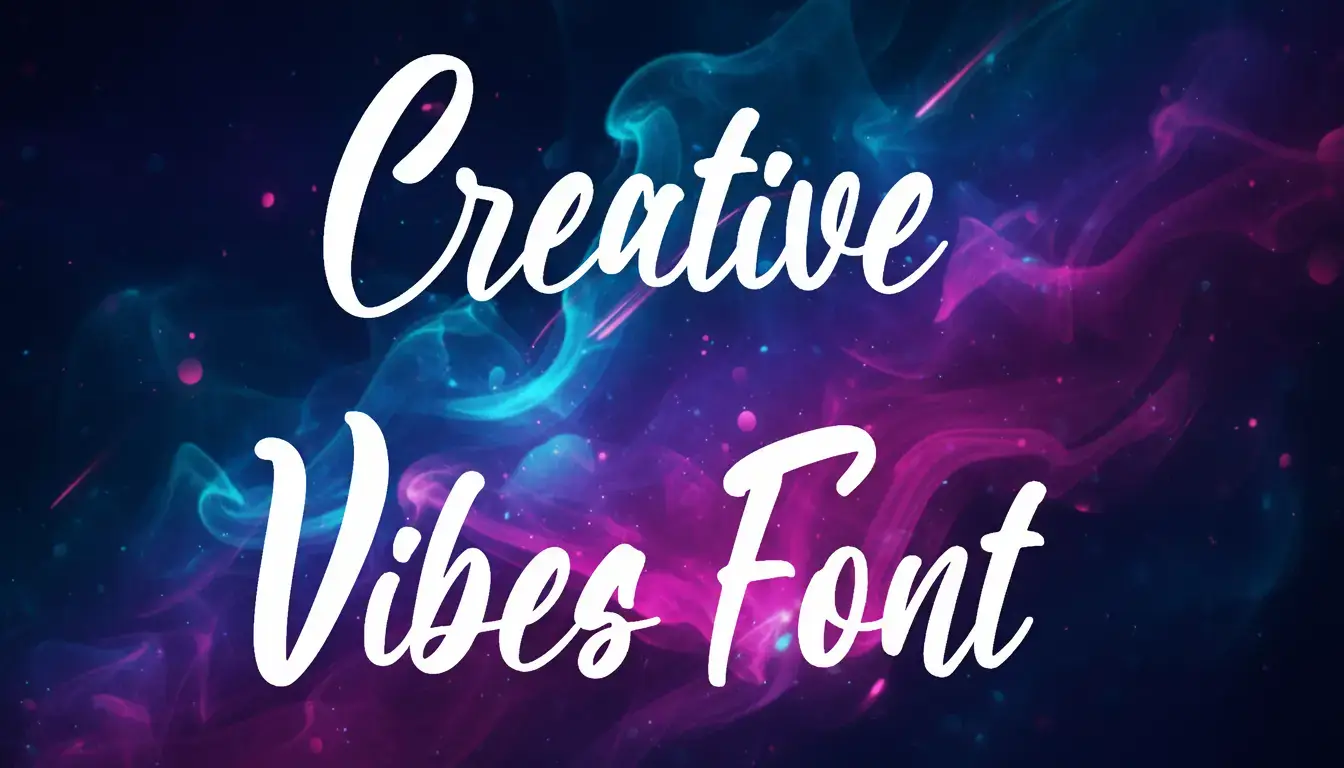
Creative Vibes Font
Creative Vibes Font Preview
Creative Vibes
Creative Vibes Character Map
Creative Vibes is a script font designed by Siti Nurjanah. Its flowing, pen-made letters give names and short phrases a personal, polished look. It's a free download, and you can try it with your own text in the preview above first.
Creative Vibes Font Details
- Designer: Siti Nurjanah
What You Can Type With Creative Vibes
You get every letter from A to Z in both cases and all the numbers from 0 to 9, which means Creative Vibes can handle full sentences, dates and prices. Common punctuation such as &, !, ? and @ is included as well. It also has the accented letters you need for Spanish, French, German, Portuguese and Italian.
Where Creative Vibes Works Best
Think of Creative Vibes for wedding invitations, logos and signature-style headings. Script fonts read best in short bursts, so keep it to names, titles and one-line quotes. Skip all caps: script capitals are drawn to start a word, not to fill one.
Does Creative Vibes support accented letters?
Yes. Creative Vibes includes the accented letters needed for Spanish, French, German, Portuguese and Italian, so it works for more than just English.